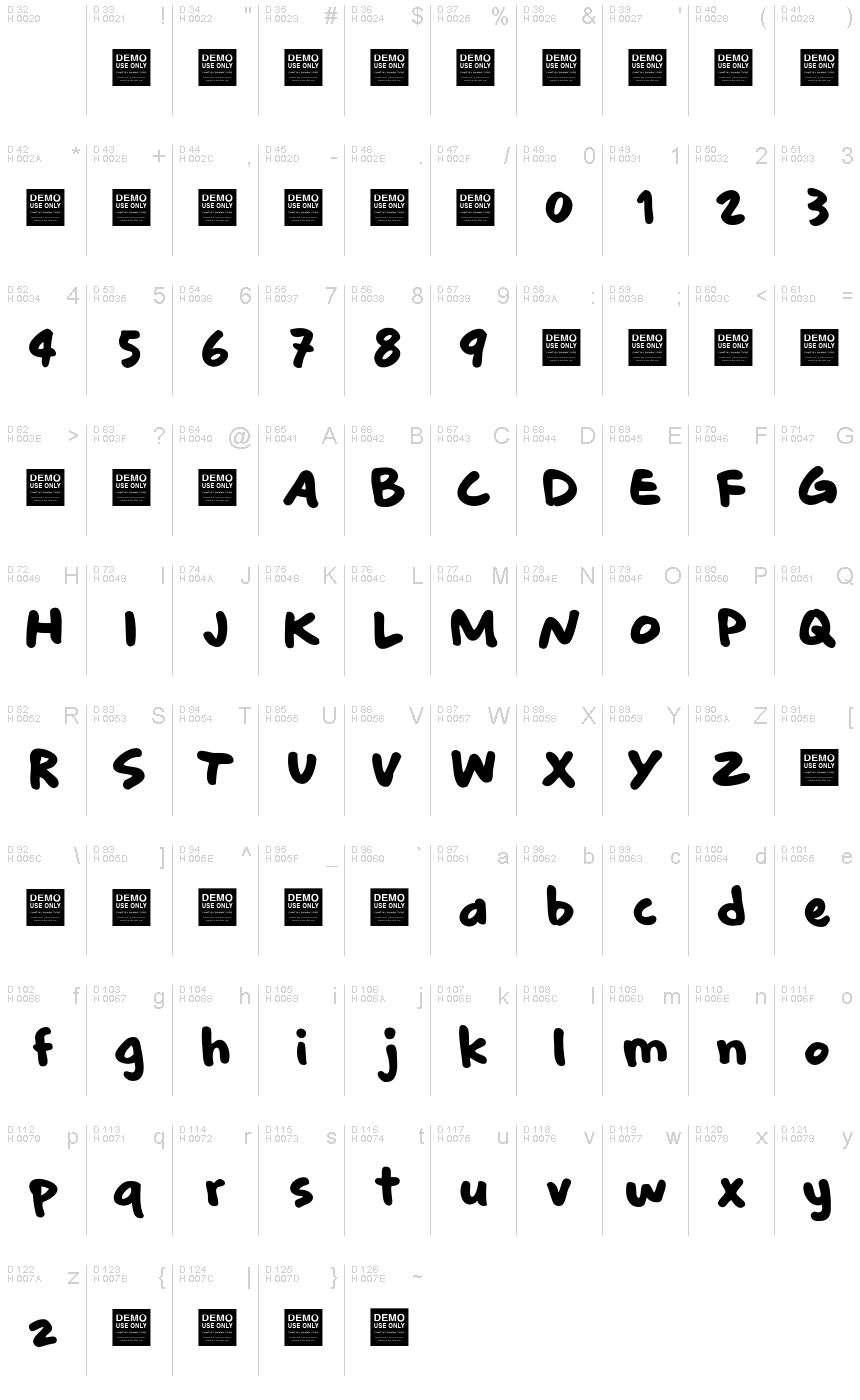
Hole Shot, a bold and expressive handwritten font crafted by BLKBK Fonts, exudes an undeniable sense of energy and dynamism. With its thick, confident strokes and organic, hand-drawn aesthetic, this typeface immediately commands attention, conveying a powerful and captivating presence. The Hole Shot font's distinct personality lends itself seamlessly to a wide range of design applications, from eye-catching headlines and impactful logos to authentic-looking branding and packaging elements.
Designed to make a lasting impression, Hole Shot's rugged, yet refined appearance seamlessly bridges the gap between traditional handwriting and modern typographic styles. Its bold, attention-grabbing forms effortlessly capture the essence of action, adventure, and a sense of raw, unbridled enthusiasm - making it an ideal choice for projects that seek to evoke a bold, energetic, and visually striking tone.